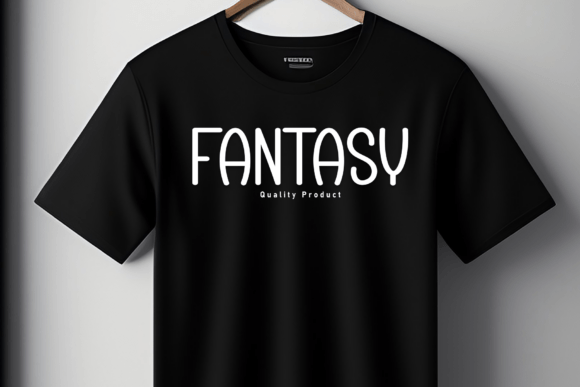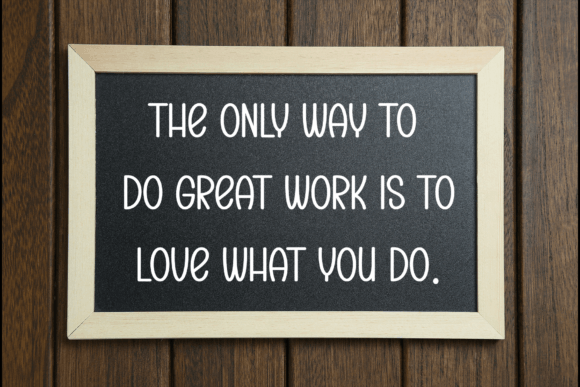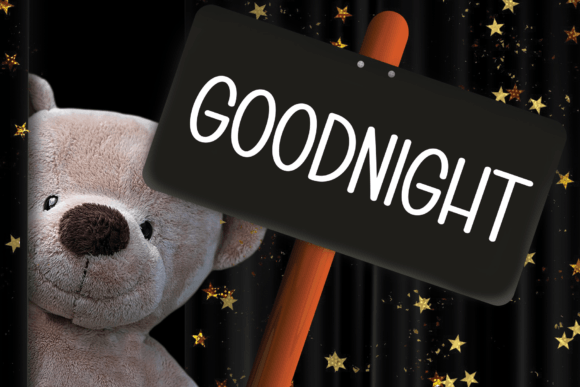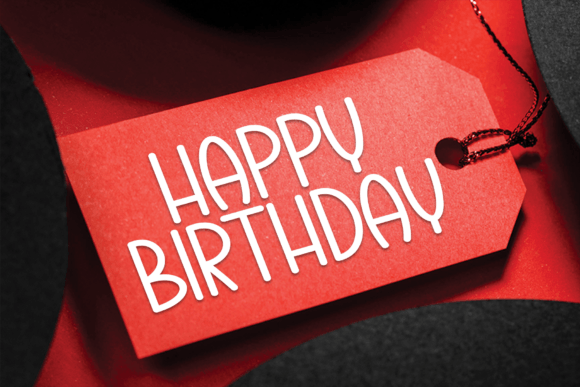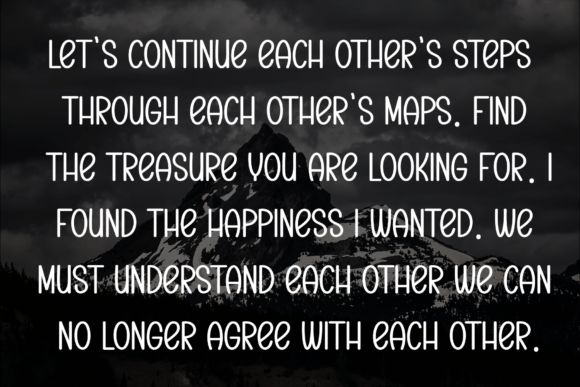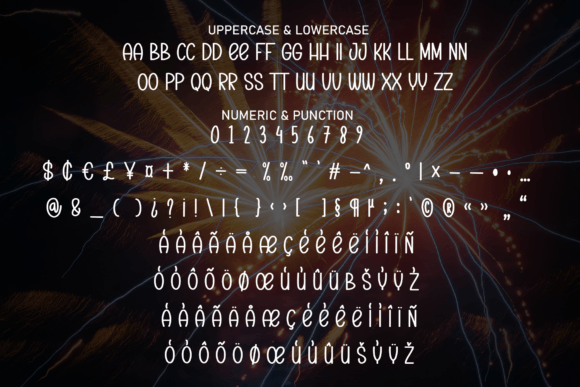
Introduction to New Year Lightning Font
New Year Lightning is a playful font that brings excitement and energy.
Its fun, bouncy letters look like theyโre sparkling with joy, making it perfect for celebrations and festive designs .